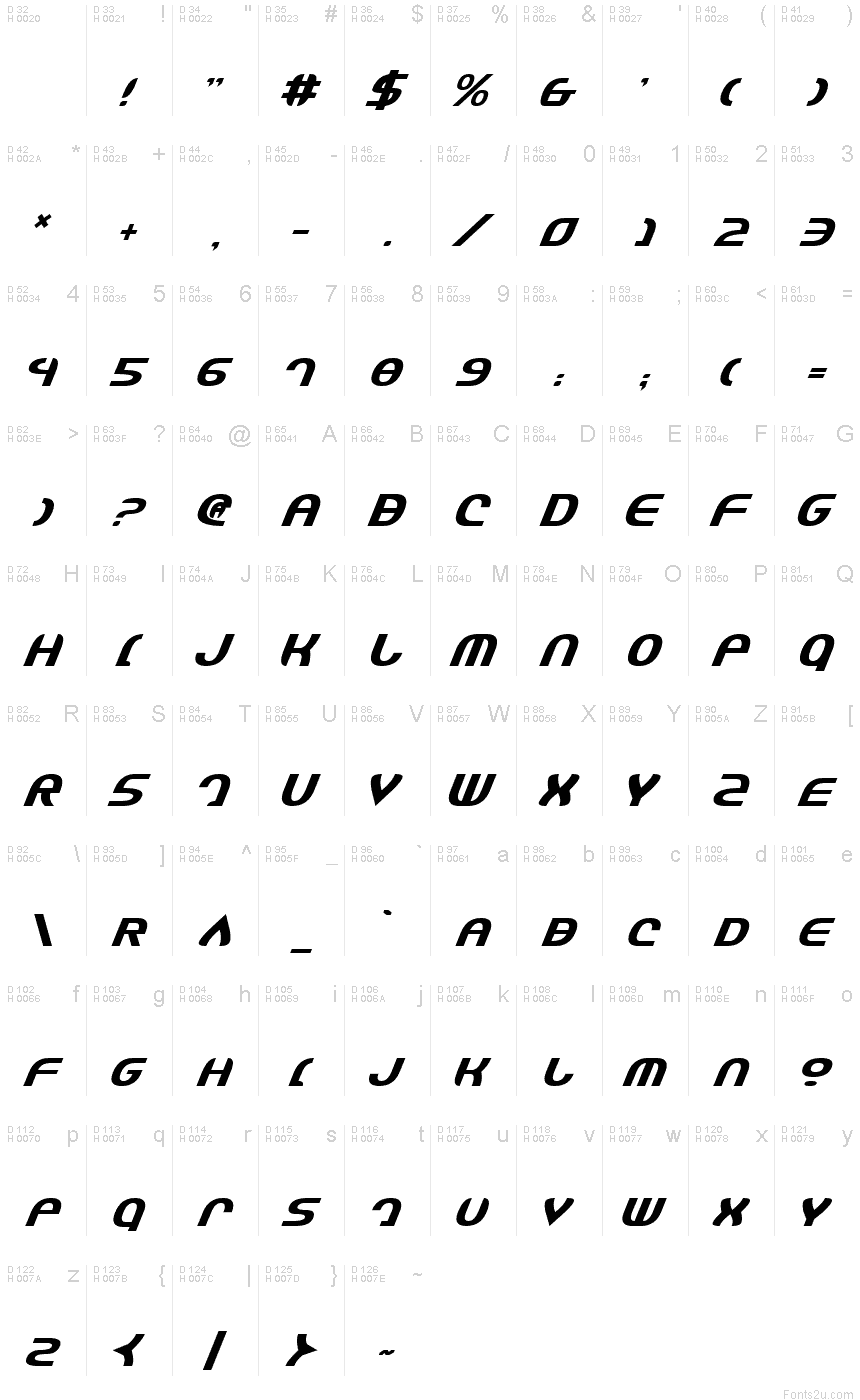
Jannisary Shield Italic
Jannisary Shield Italic by Iconian Fonts is a free futuristic display sans with a forceful forward slant. Wide, flowing strokes sweep through the letters, with sharply tapered joins set against broad rounded curves and a strong horizontal pull. Deep open arches repeat across the rounded letterforms, breaking up their dense weight.
Motorsport and science-fiction themes suit its speed-driven shapes. That connection makes it useful for racing game graphics, team merchandise, and entertainment posters, with athletic branding and custom vehicle graphics offering a second home for lettering that can act like a painted emblem.